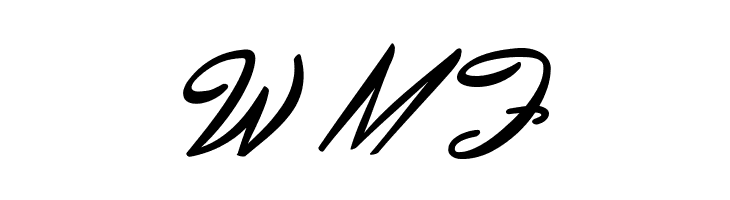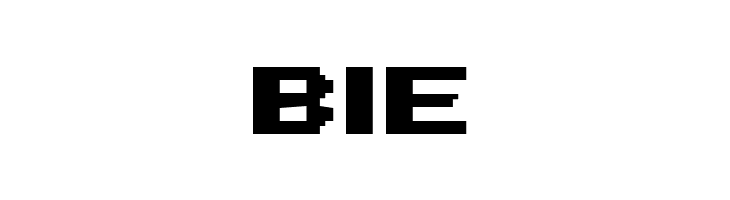
( Fonts by Cannot Into Space Fonts )
A playful, thin, handwritten font with a whimsical and informal style.
( Fonts by Cannot Into Space Fonts )
A playful, handwritten font with thin, irregular strokes and a casual feel.
( Fonts by Cannot Into Space Fonts )
A casual handwritten font with thin, slightly slanted strokes.
A bold, gothic-inspired font with sharp, angular edges and a medieval flair.
A dot-matrix style font with a modern, digital appearance.
A Gothic-style font with intricate, angular strokes and ornate serifs.
A tall, narrow font with a modern, art deco-inspired design.
A dot matrix style font with a retro digital display aesthetic.
A bold, angular font with a modern geometric style.
A bold, angular font with a modern and edgy geometric design.
A dynamic and flowing script font with elegant, cursive letterforms.
A festive dingbat font with a variety of Christmas-themed icons.
A decorative set of bunny illustrations in a playful, cartoonish style.
Intricate Celtic knot designs form each character, offering a decorative and historical aesthetic.
A whimsical set of bunny illustrations in various playful poses.
Hand-drawn pictogram dingbat font with playful illustrations.
A decorative font featuring Valentine-themed illustrations and symbols.
( Fonts by Mike Hill )
A modern font with high contrast and geometric elegance.
A playful font with characters resembling handprints, ideal for fun and informal projects.
A bold, oblique font with high contrast and wide spacing, perfect for dynamic designs.
A bold, super extended, and oblique font with a modern and dynamic style.
A bold, oblique font with a dynamic and energetic style.
( 7NTypes - Situjuh Nazara - 7ntypes.com )
A playful and elegant script font with smooth, flowing characters.
( 7NTypes - Situjuh Nazara - 7ntypes.com )
A stylish and flowing script font with elegant curves and smooth connections.
( Intellecta Design - Paulo W - new.myfonts.com/foundry/Intellecta_Design/?refby=paulow )
Ornate dingbat set with historical and whimsical illustrations.
( Intellecta Design - Paulo W - new.myfonts.com/foundry/Intellecta_Design/?refby=paulow )
A silhouette-based decorative font with mixed human, animal, and object scenes.
( Paragraph - Jan Schmoeger - www.paragraph.com.au )
A modern, geometric font with clean lines and rounded edges.
( Steve Cochrane - stevecochrane.com )
A pixelated, blocky font with a retro digital aesthetic.
( Daniel Plant - www.fontmonster.org )
A playful, hand-drawn script with irregular, expressive strokes.
( Fivefifty Belt Company - www.fivefiftybeltco.com )
A bold, playful handwritten font with a lively and informal style.
A bold, geometric font with high contrast and modern, abstract shapes.
A bold, geometric font with a 3D shadow effect, perfect for eye-catching designs.